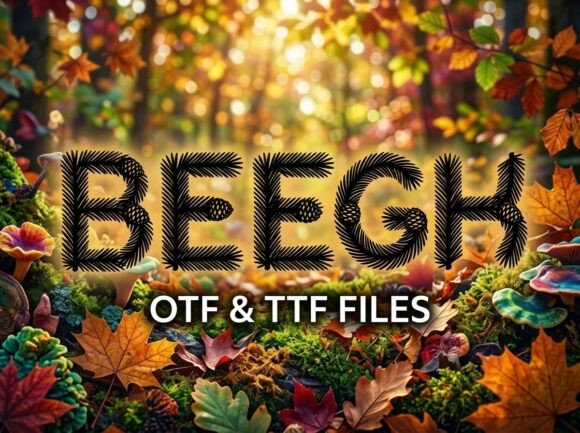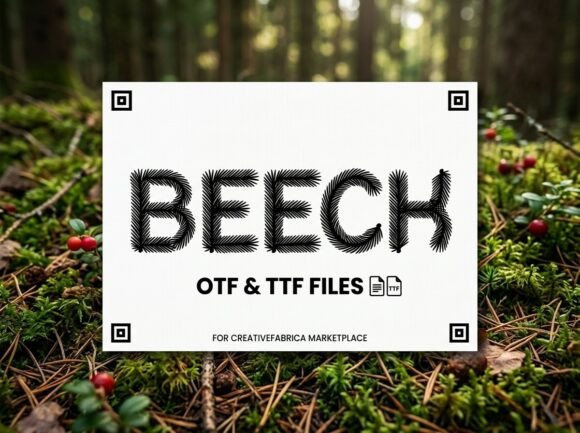
Discover the Great Outdoors with Beech Font
Are you a designer or craftsperson looking for a unique and captivating font to convey the essence of the great outdoors? Look no further than Beech, a distinctive display typeface that embodies the natural and evergreen spirit of the wilderness. In this article, we’ll explore the features and benefits of Beech Font, and why it’s the perfect choice for outdoor enthusiasts and brands.
The Inspiration Behind Beech Font
Beech Font is more than just a typeface – it’s an ode to the natural world. The font’s creator drew inspiration from the great outdoors, meticulously crafting each letterform from high-detail pine needle textures and illustrated pinecones. The result is a bold, sans-serif font that exudes a sense of ruggedness and organic charm.
Key Features of Beech Font
- Bold and Sans-Serif Letterforms: Beech Font features sturdy, sans-serif letterforms that command attention and convey a sense of confidence.
- Pine Needle Textures and Pinecones: The font’s unique texture and illustrations of pinecones add a level of depth and organic complexity to each letterform.
- Dense and Rhythmic Patterns: Beech Font’s organic patterns create a sense of rhythm and flow, perfect for headlines, titles, and short phrases.
- Unmistakable Wilderness Aesthetic: Beech Font’s distinctive style instantly evokes the great outdoors, making it perfect for brands and designs that want to convey a sense of adventure and exploration.
Use Cases for Beech Font
Beech Font is an incredibly versatile typeface that can be used in a variety of contexts. Here are some ideas to get you started:
- Independent Outdoor Adventure Branding: Use Beech Font to create bold and eye-catching logos, business cards, and marketing materials for your outdoor adventure company.
- National Park Signage: Beech Font’s clear and legible letterforms make it an excellent choice for signage and wayfinding systems in national parks and protected areas.
- Sustainable Woodcraft Logos: Add a touch of rustic charm to your woodcraft business with Beech Font’s natural and earthy aesthetic.
- Social Media Headers: Use Beech Font to create stunning social media headers that showcase your love for the outdoors and connect with like-minded individuals.
Why Choose Beech Font?
In a world where fonts are a dime a dozen, Beech Font stands out from the crowd. Here are just a few reasons why:
- Unique and Memorable: Beech Font’s distinctive style ensures that your brand or design will be remembered and noticed.
- High-Impact Visuals: The font’s bold and organic patterns create a lasting impression, perfect for designs that need to make a statement.
- Flexibility and Versatility: Beech Font can be used in a variety of contexts, from digital designs to print materials.
Beech Font is more than just a typeface – it’s a gateway to the great outdoors. With its bold and sans-serif letterforms, pine needle textures, and illustrated pinecones, Beech Font embodies the natural and evergreen spirit of the wilderness. Whether you’re a designer, craftsperson, or outdoor enthusiast, Beech Font is the perfect choice for your next project. So why wait? Embrace the essence of the great outdoors with Beech Font and create designs that inspire and connect with others.